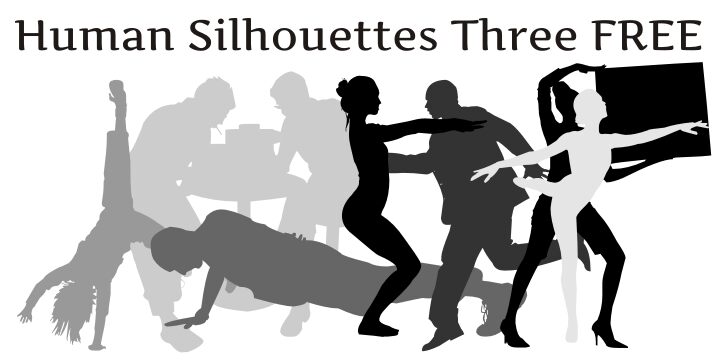
Human Silhouettes Free Three by Paulo W is a free human-figure dingbat font featuring solid silhouettes in varied poses and activities. The figures range from dancers and performers to standing and gesturing people, with props such as furniture and signs adding context to the scenes.
It can turn captions or labels into small narrative vignettes. Event posters, theater programs, and community brochures gain an immediate sense of people in motion, conversation, or performance. Across these uses, the shared silhouette treatment links unrelated activities into one coherent pictorial set.